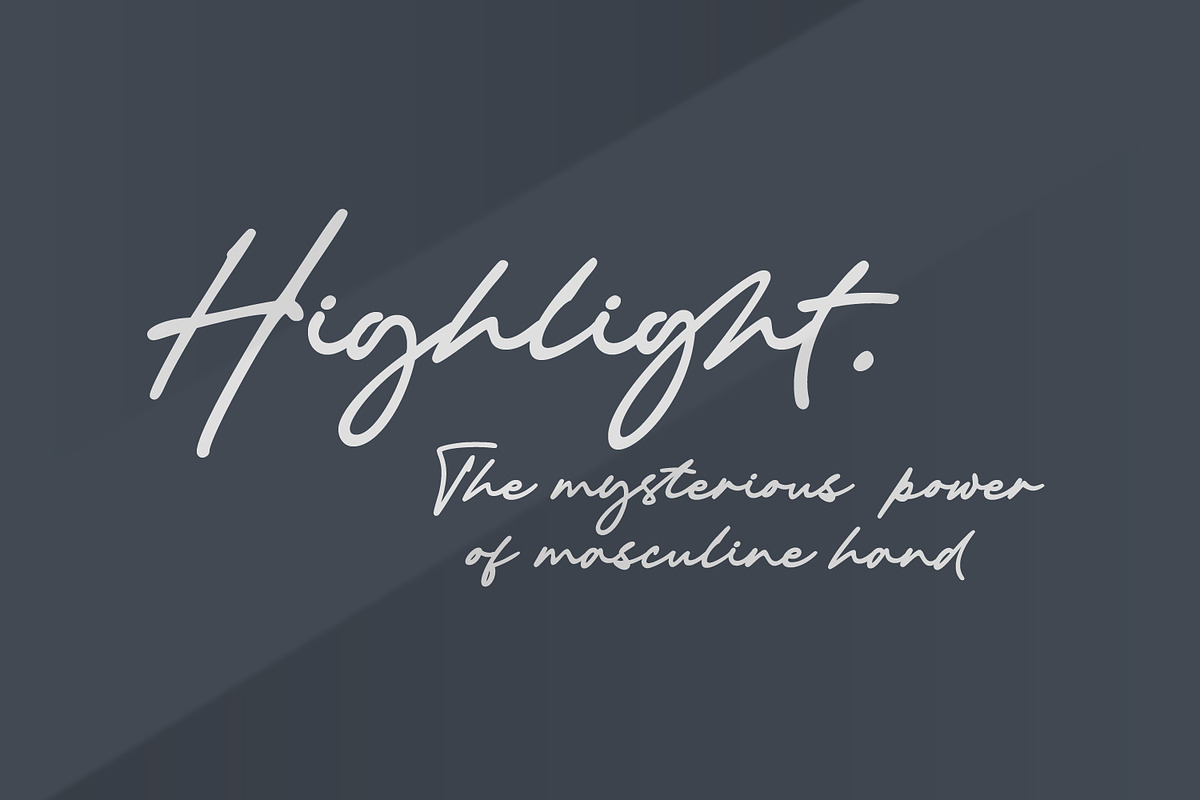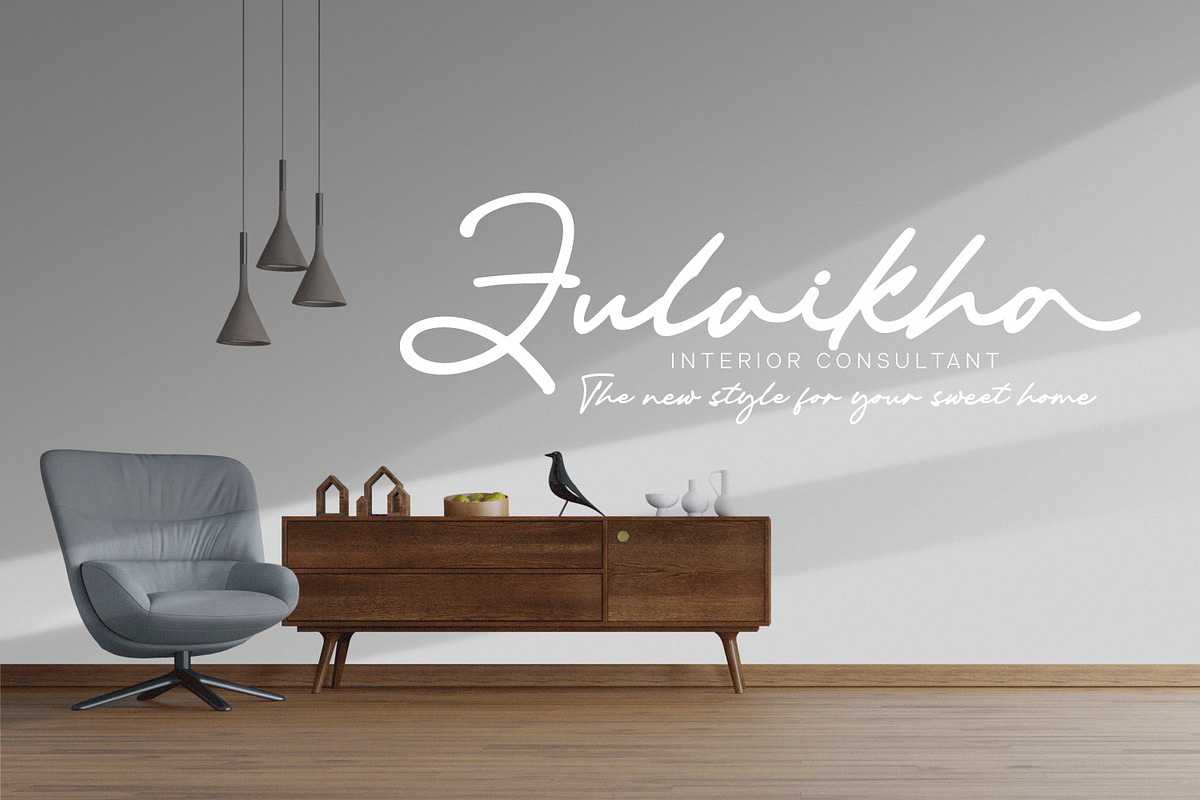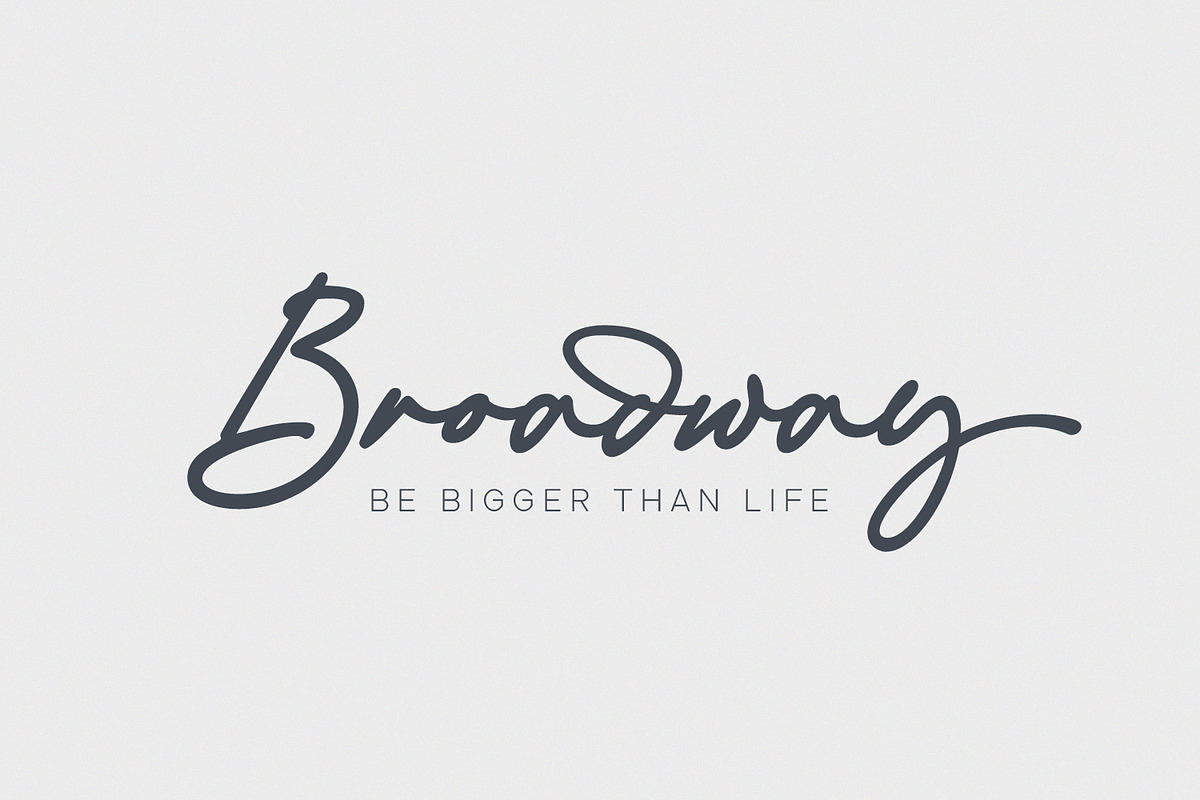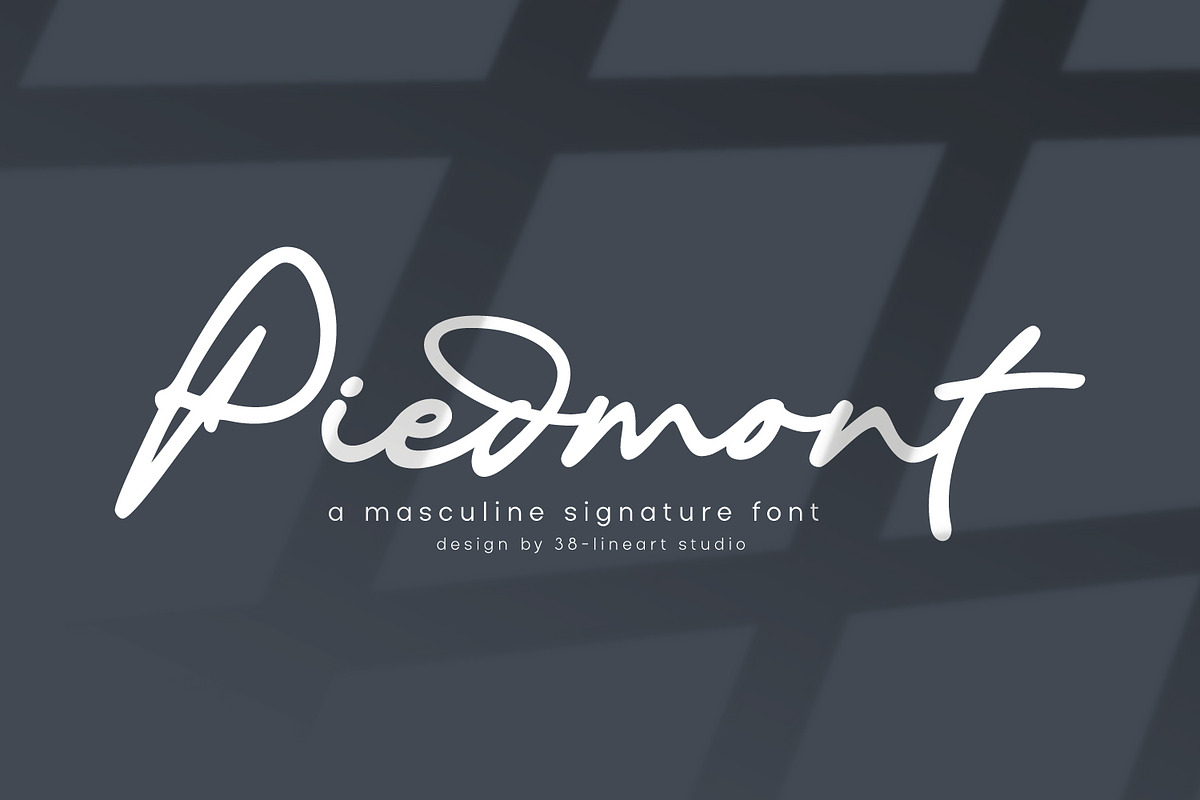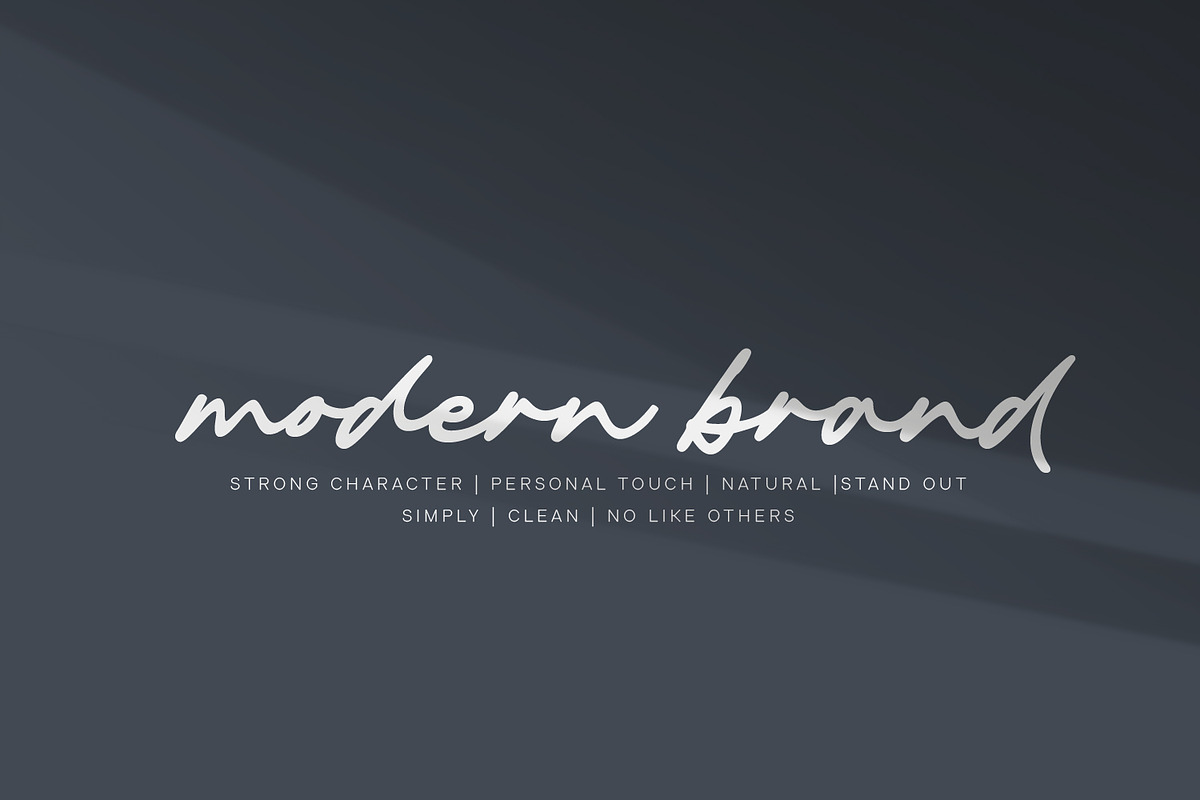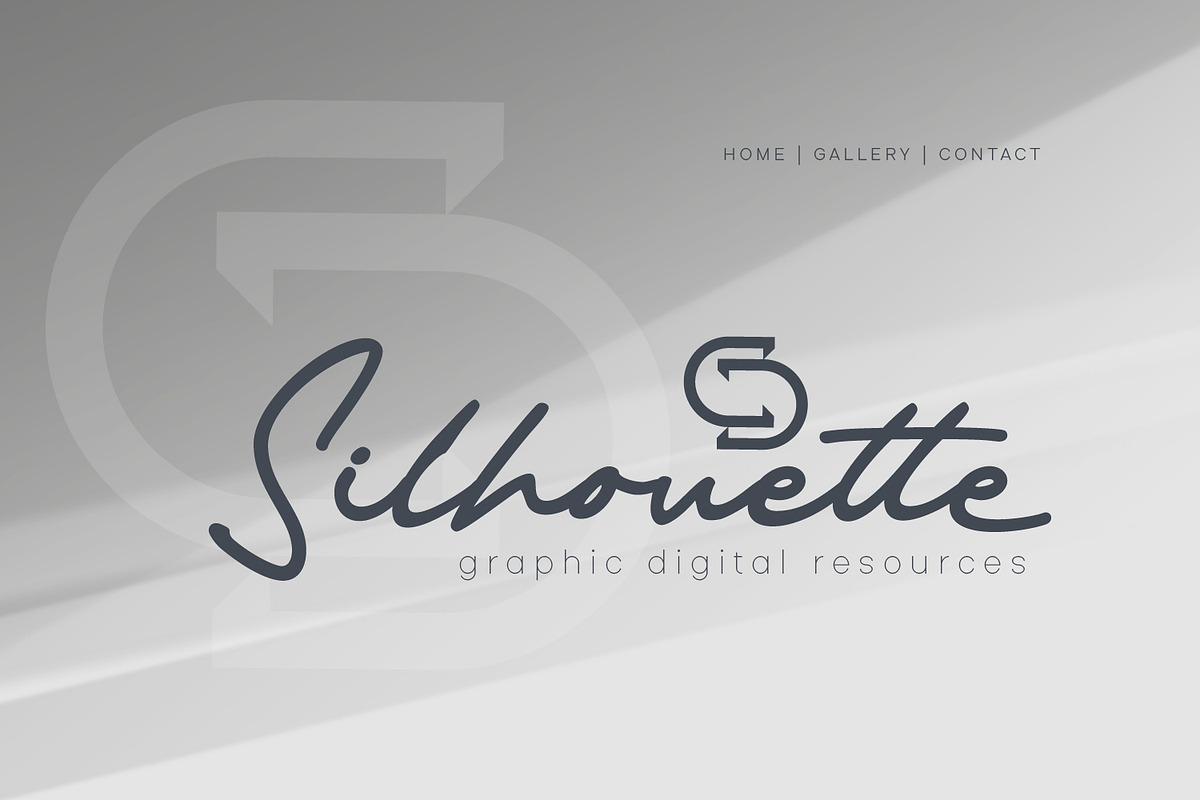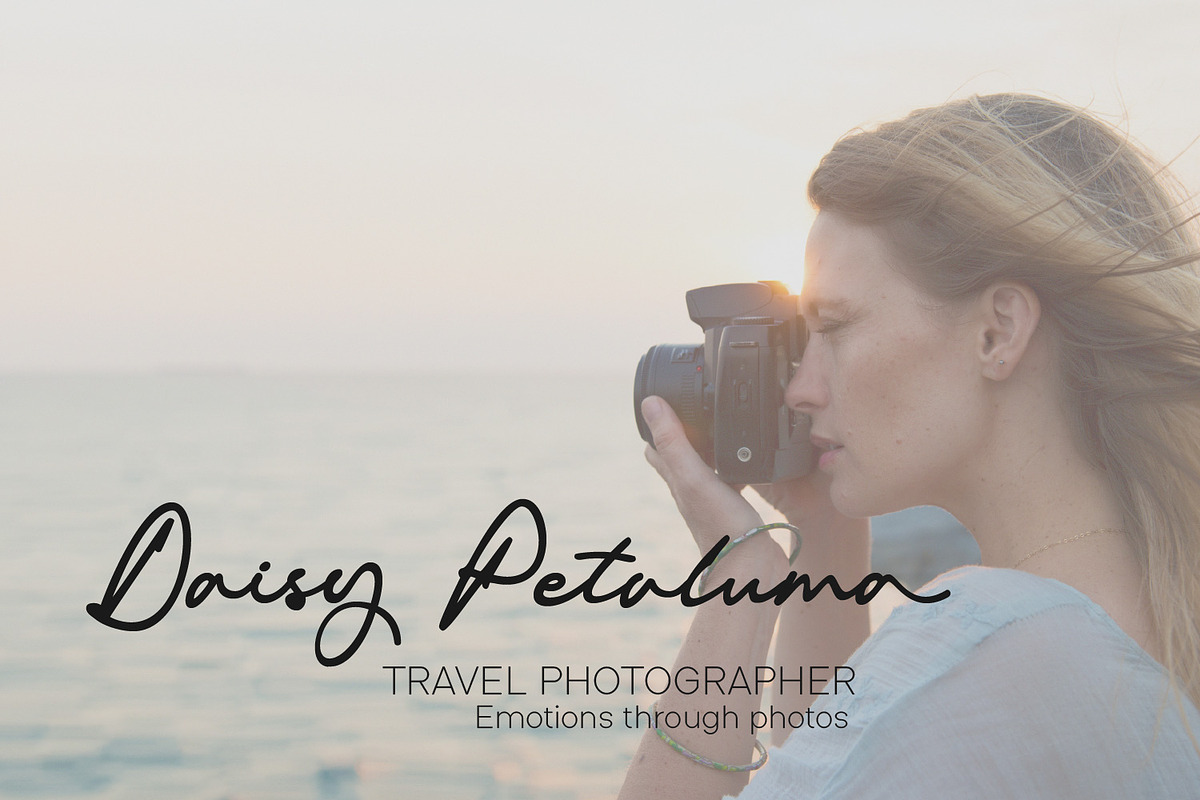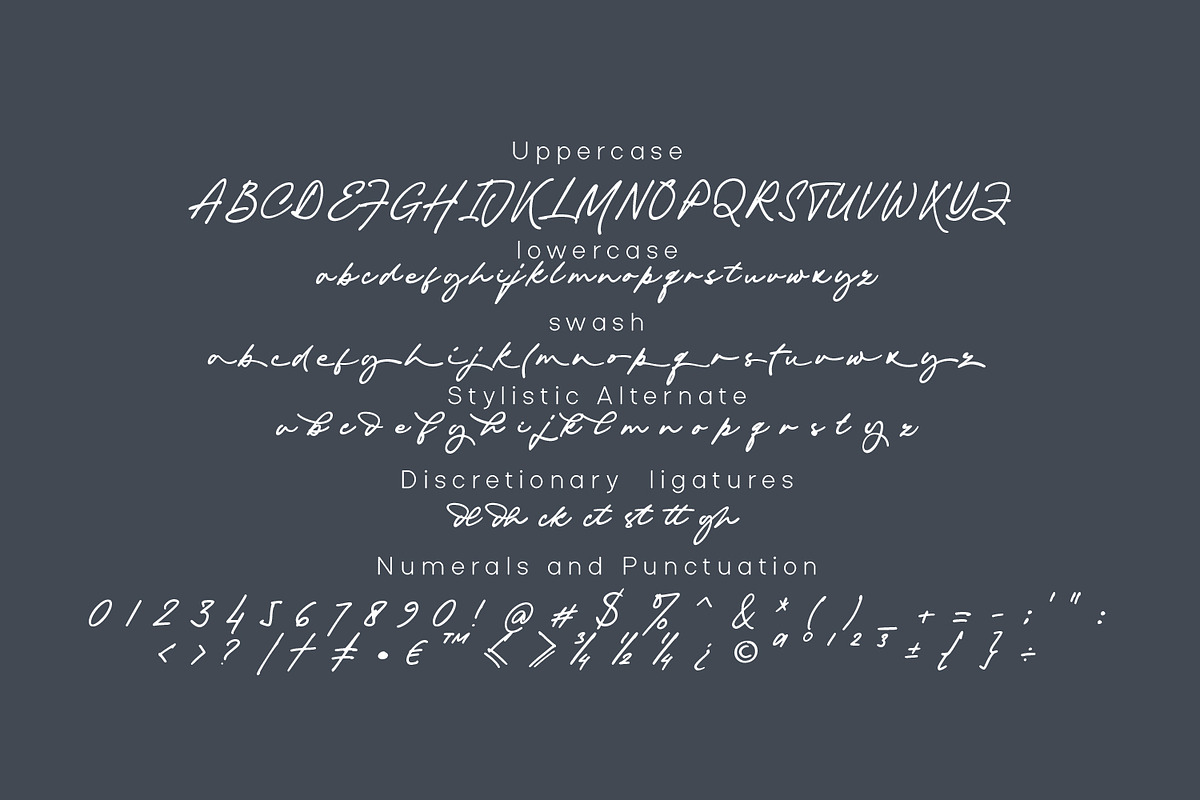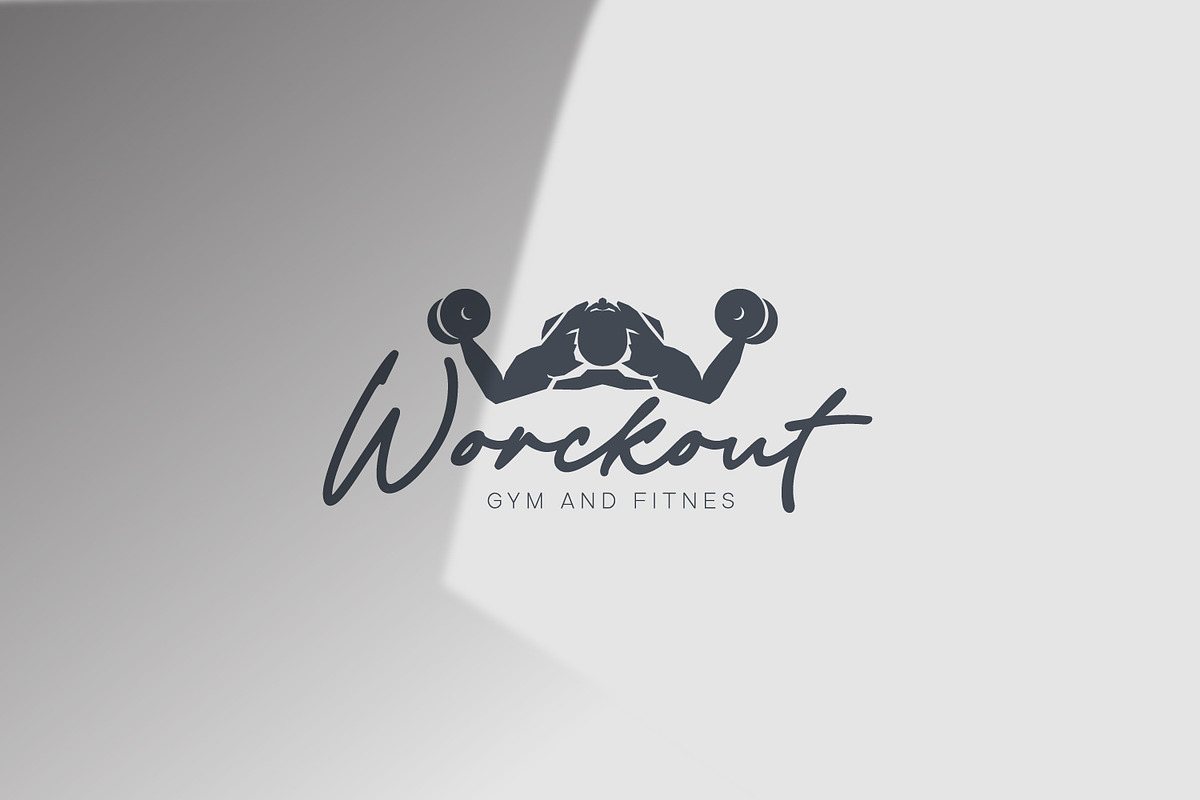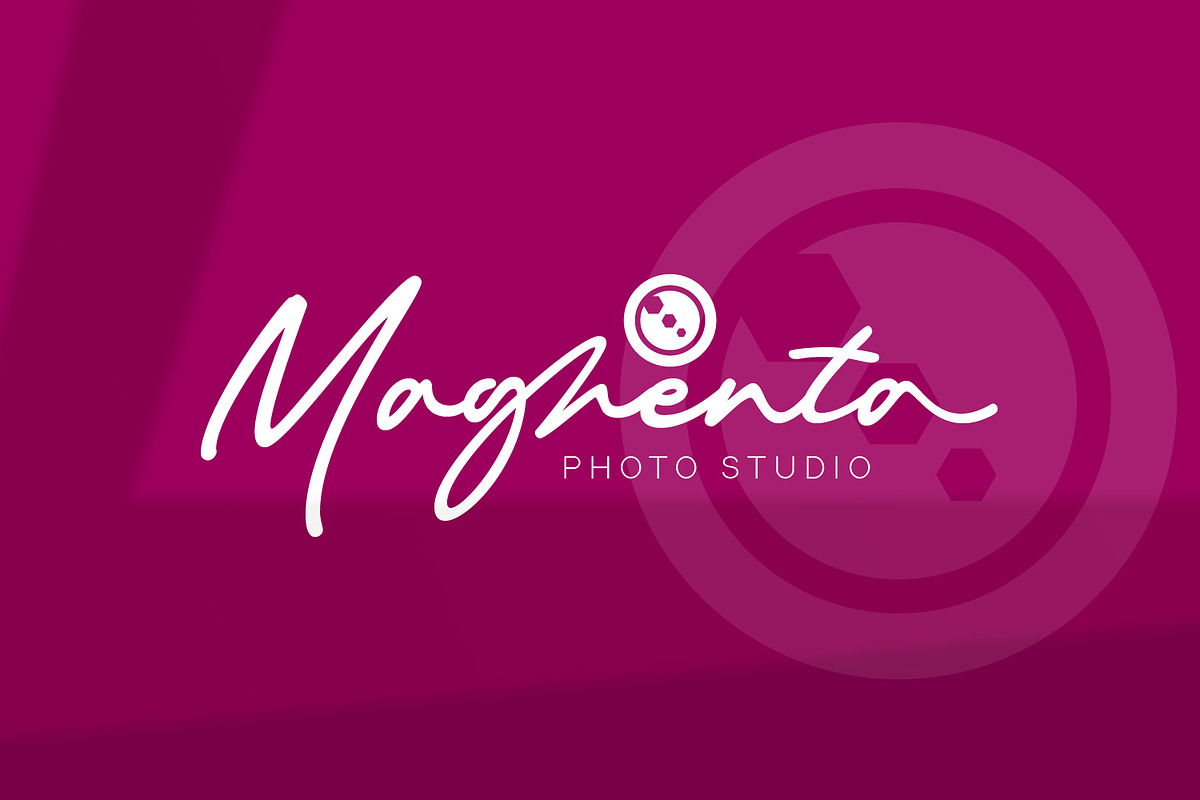
Piedmont - Masculine Signature
introducing ‘Piedmont’. a masculine signature script
Inspired by men’s hand strokes, with a decisive pattern, each glyph is formed through the pressing of the pen, the orientation of the shape is almost constant with the direction of the pattern that continues to point forward and ends with a strong pressing of the pen.
We call it the masculine signature type, a definite decision and full confidence.
We design this font for modern product branding, not only for men, but women also love this masculine side.
This font is equipped with swashes, alternates and additional ligatures for the lowercase.
By using this font, it will give your brand more confidence to appear wider.